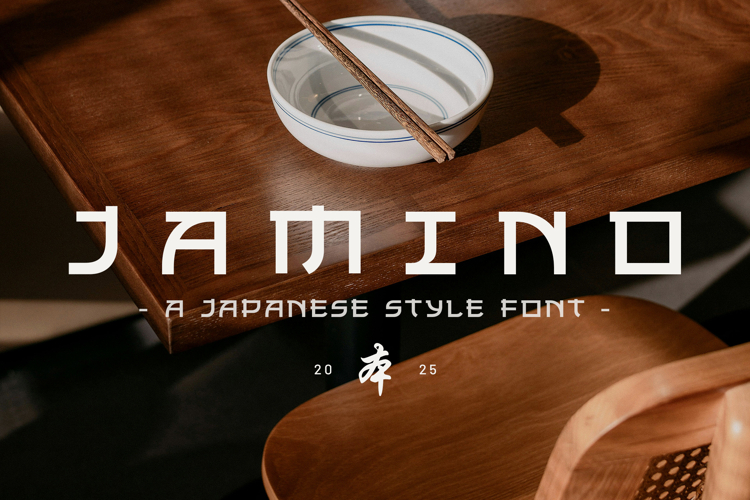
Jamino - Modern Minimal Japanese Font - Clean Display Font
Jamino is a powerful, modern serif font inspired by traditional Japanese aesthetics. Its clean lines and minimalist design make it an ideal choice for a wide range of creative projects, from corporate branding, restaurant menu, luxury resort brochure, modern e-commerce site, advertising campaign, logo design, eye-catching posters, merchandise, product packaging and any projcts that provides a bold and clear typographic voice that stands out. This versatile display font, with its unique ligatures and a full character set including multilingual support, allows you to create stunning logos, captivating headlines, and memorable brand identities.